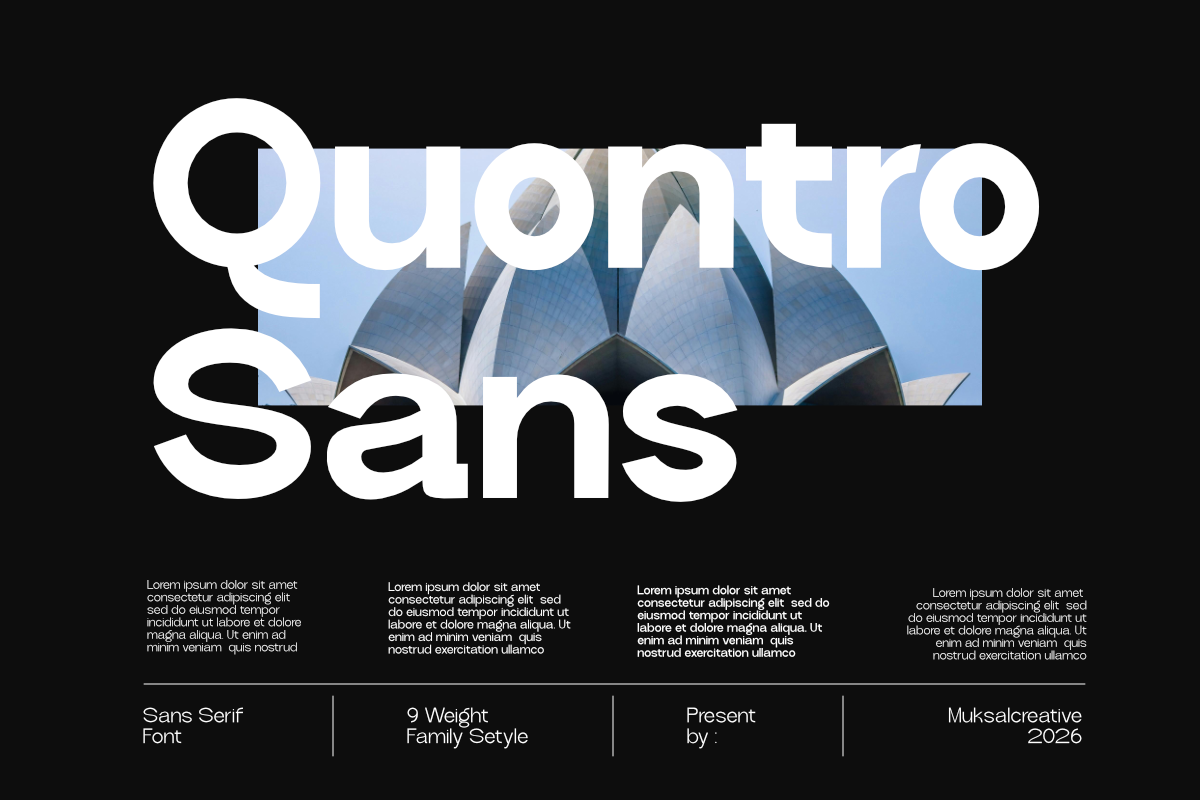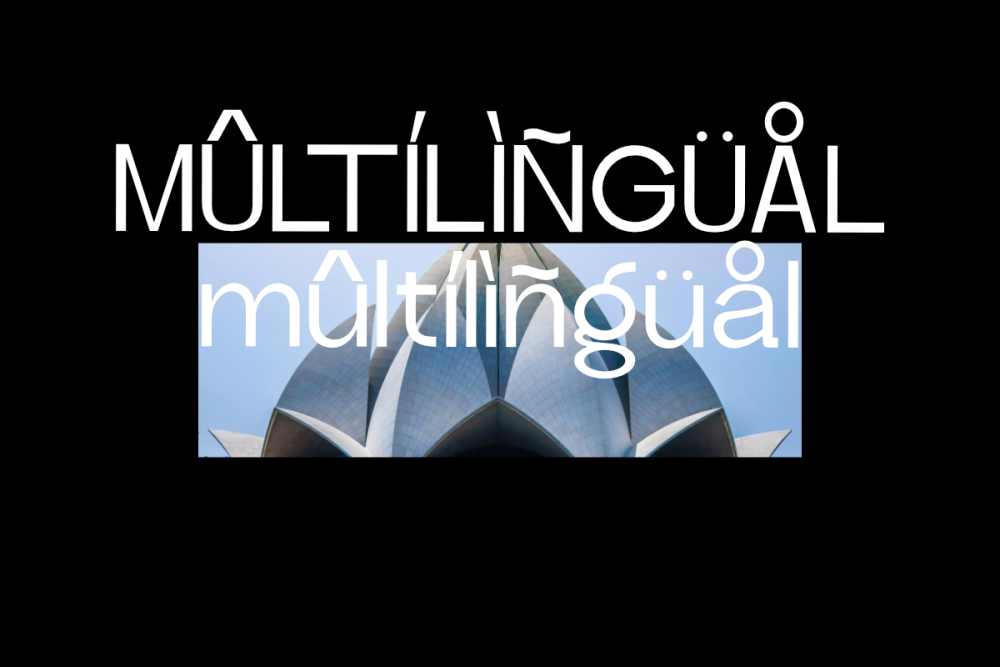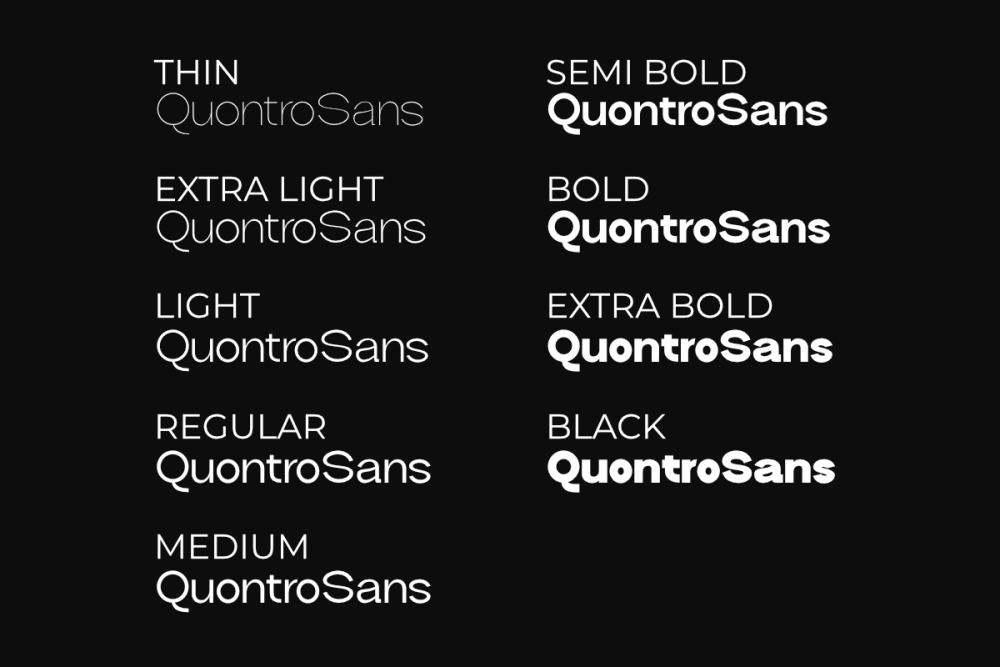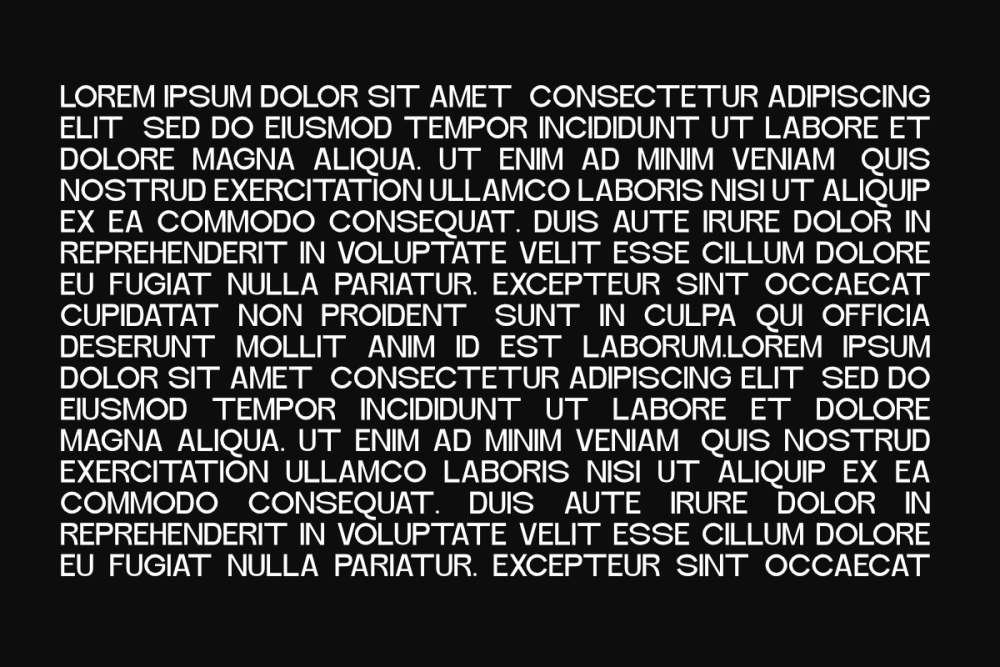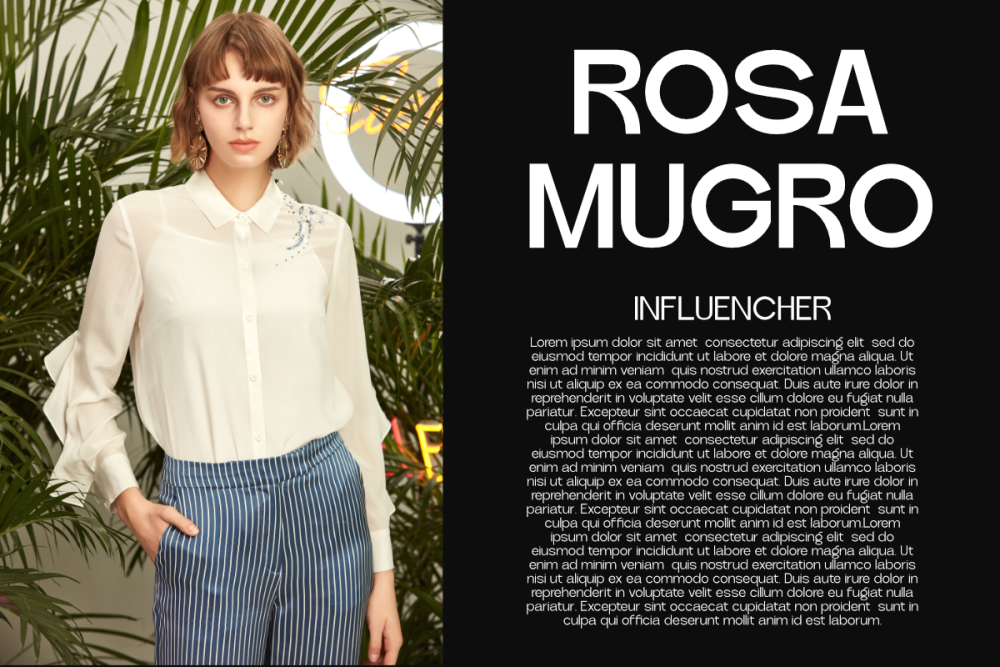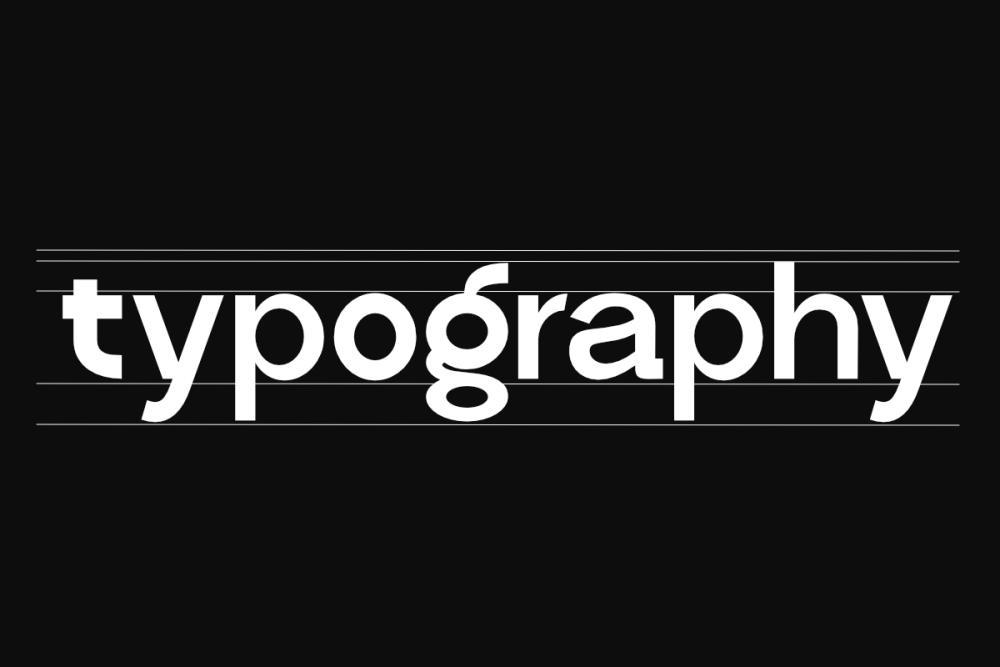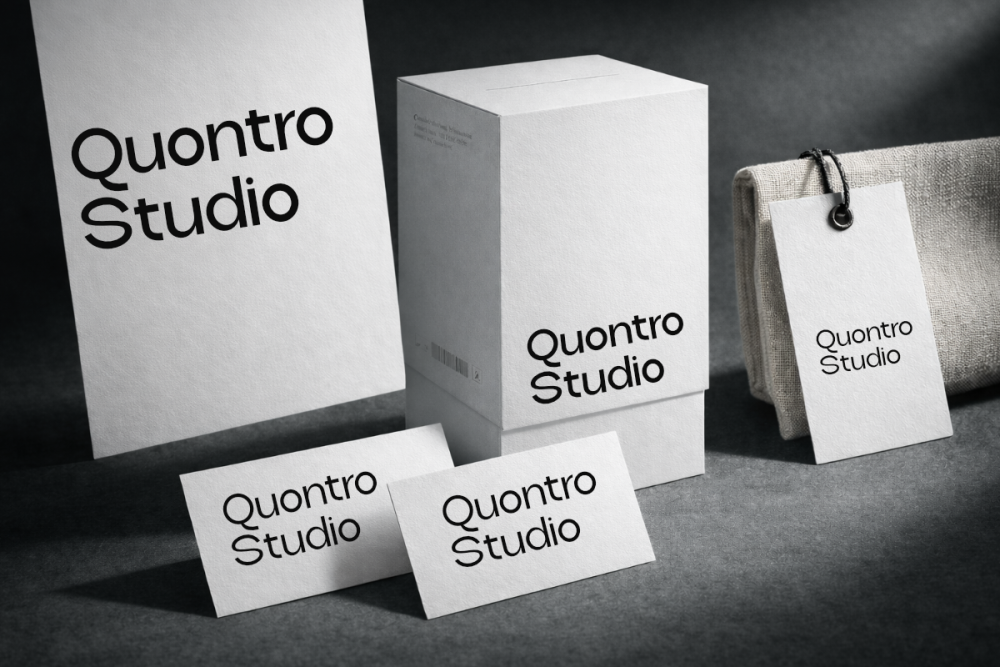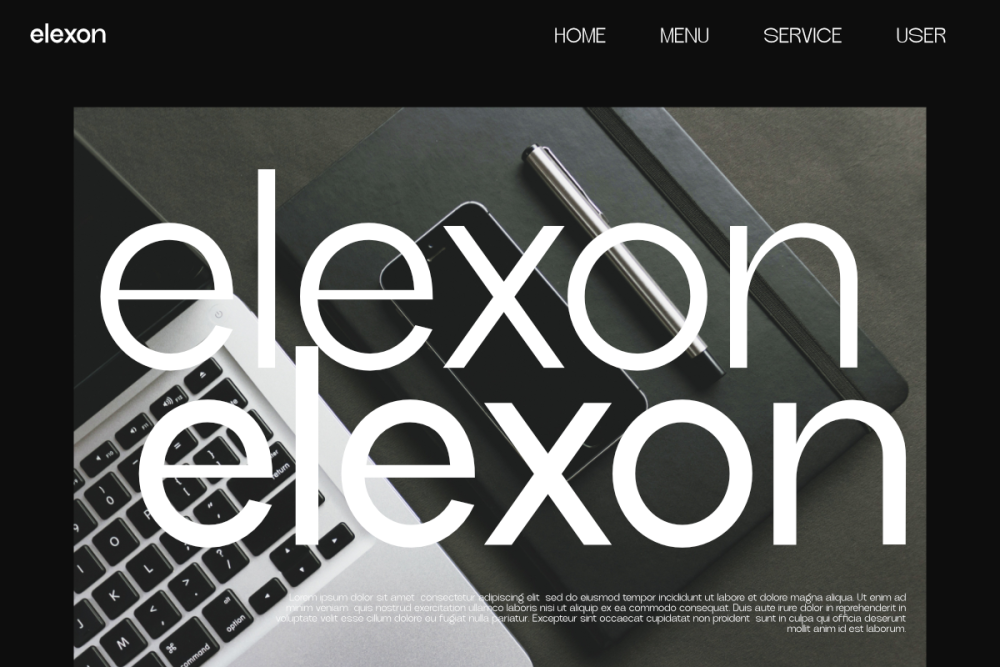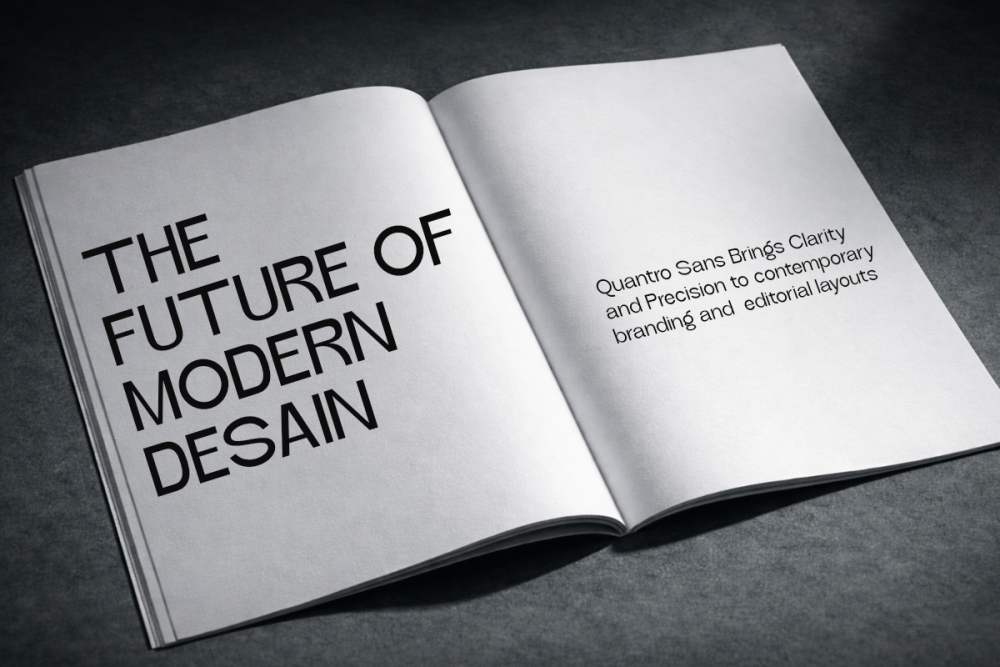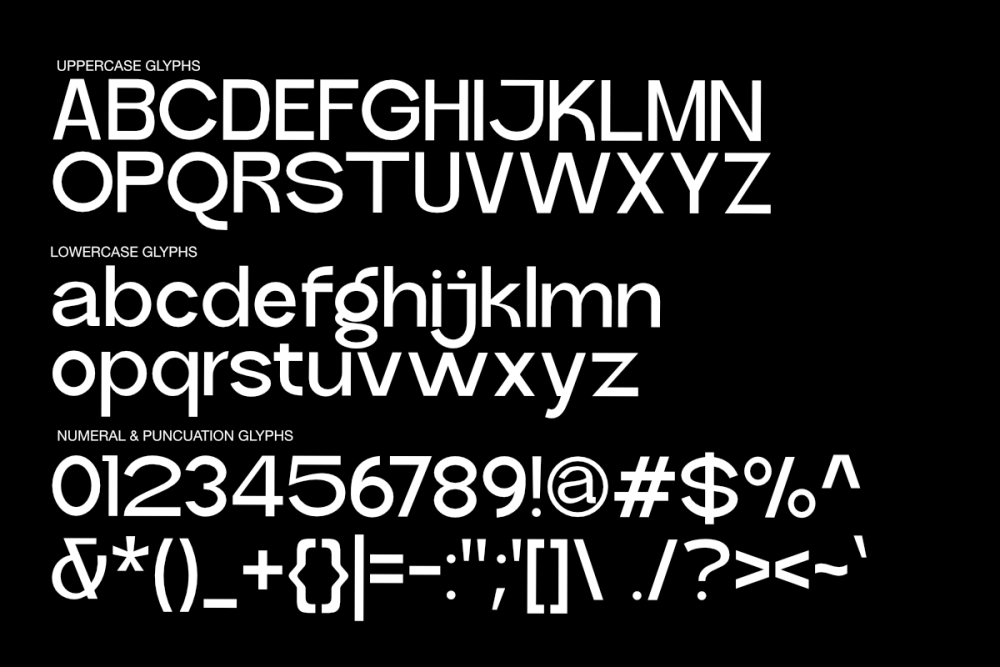
Quantro Sans – Modern Geometric Typeface Family
Quantro Sans is a modern geometric sans serif typeface designed with precision, clarity, and versatility in mind. Built for contemporary design needs, this font family delivers a clean and sophisticated look that works beautifully across branding, editorial, digital interfaces, and modern visual identities.
With its balanced proportions, smooth curves, and minimalist structure, Quantro Sans offers a professional and refined appearance while maintaining excellent readability at both large display sizes and smaller text settings.
This typeface is perfect for designers who want a strong yet elegant typographic voice. Whether used for logos, posters, websites, packaging, or corporate branding, Quantro Sans provides a timeless modern aesthetic that adapts effortlessly to a wide range of creative projects.
Quantro Sans comes with a complete 9-weight family, giving designers full flexibility to create clear hierarchy and impactful compositions.
Font Features
• 9 Font Weights (Thin – Black)
• Modern Geometric Design
• Clean & Minimal Letterforms
• Professional Kerning & Spacing
• Uppercase & Lowercase
• Numbers & Punctuation
• Multilingual Support
Perfect For
• Branding & Logo Design
• Editorial Layouts
• Posters & Advertising
• Web & UI Design
• Packaging Design
• Corporate Identity
Quantro Sans is a versatile modern typeface crafted to elevate your design with clarity, balance, and contemporary style.